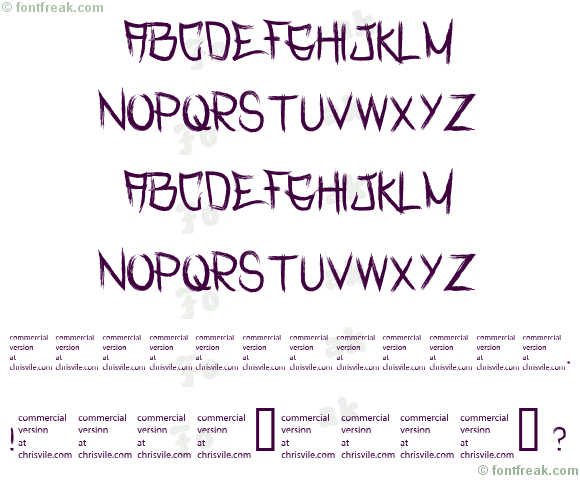
Rasterized-Regular
Rasterized Regular
Rasterized-Regular by Chris Vile is a distinctive display font that captures attention with its unique aesthetic. This font falls under the decorative category, showcasing a playful yet edgy design that makes it suitable for a variety of creative projects. The visual characteristics of Rasterized-Regular include irregular stroke weights that lend a dynamic feel, along with a rugged texture that hints at a hand-drawn quality. The spacing is well-balanced, ensuring readability while maintaining a casual charm that invites exploration.
Ideal for use cases such as eye-catching posters, album covers, and branding materials, Rasterized-Regular shines in environments that call for a bold statement. Its unconventional style makes it perfect for music events and festivals, where it can convey energy and excitement. Additionally, this font can elevate restaurant menus, giving a quirky twist to the dining experience, or be utilized in social media graphics aimed at engaging younger audiences.
The target audience for Rasterized-Regular includes graphic designers, content creators, and small business owners who are looking to infuse creativity and personality into their projects. This font is particularly appealing to those seeking to break away from traditional typography, offering an alternative that stands out in a crowded visual landscape.
What sets Rasterized-Regular apart is its unique combination of playful design and versatility. Its ability to adapt to various contexts while maintaining a strong visual identity makes it an essential addition to any designer’s toolkit. For those interested in exploring this captivating typeface, a Rasterized-Regular font free download is available, allowing users to incorporate its distinctive flair into their creative endeavors without any cost.